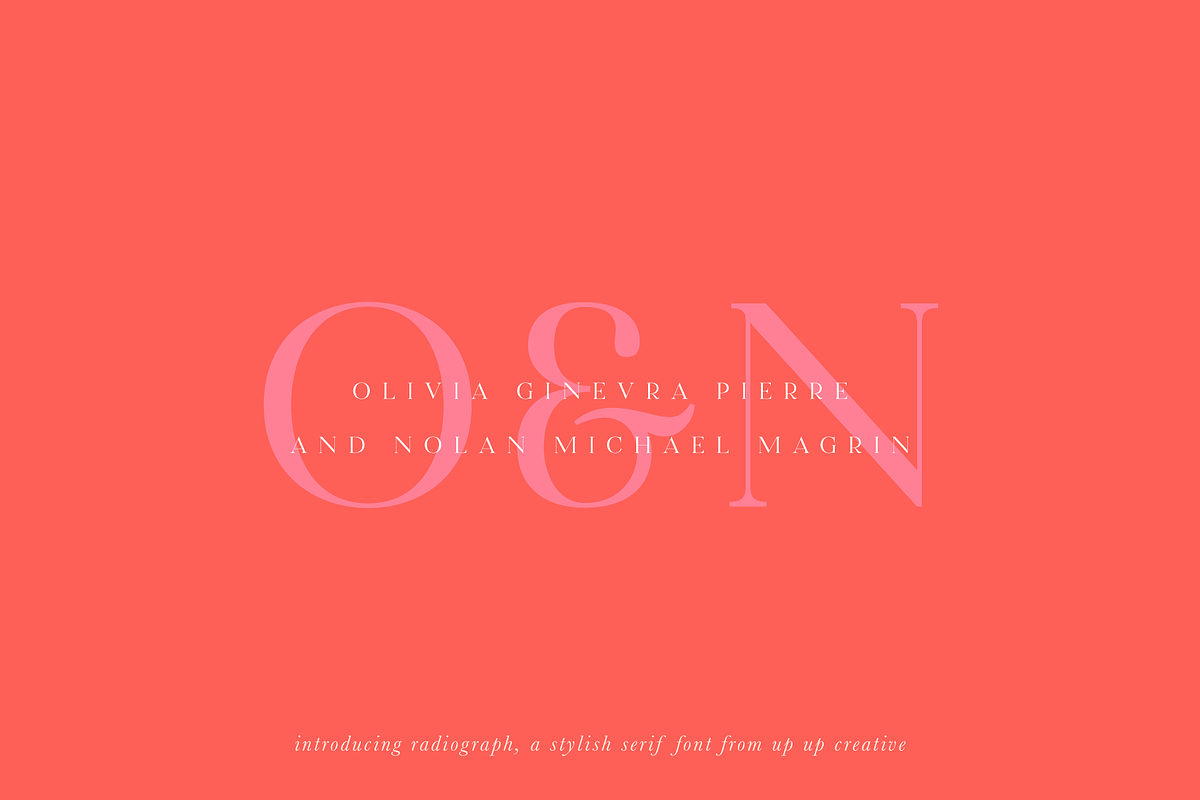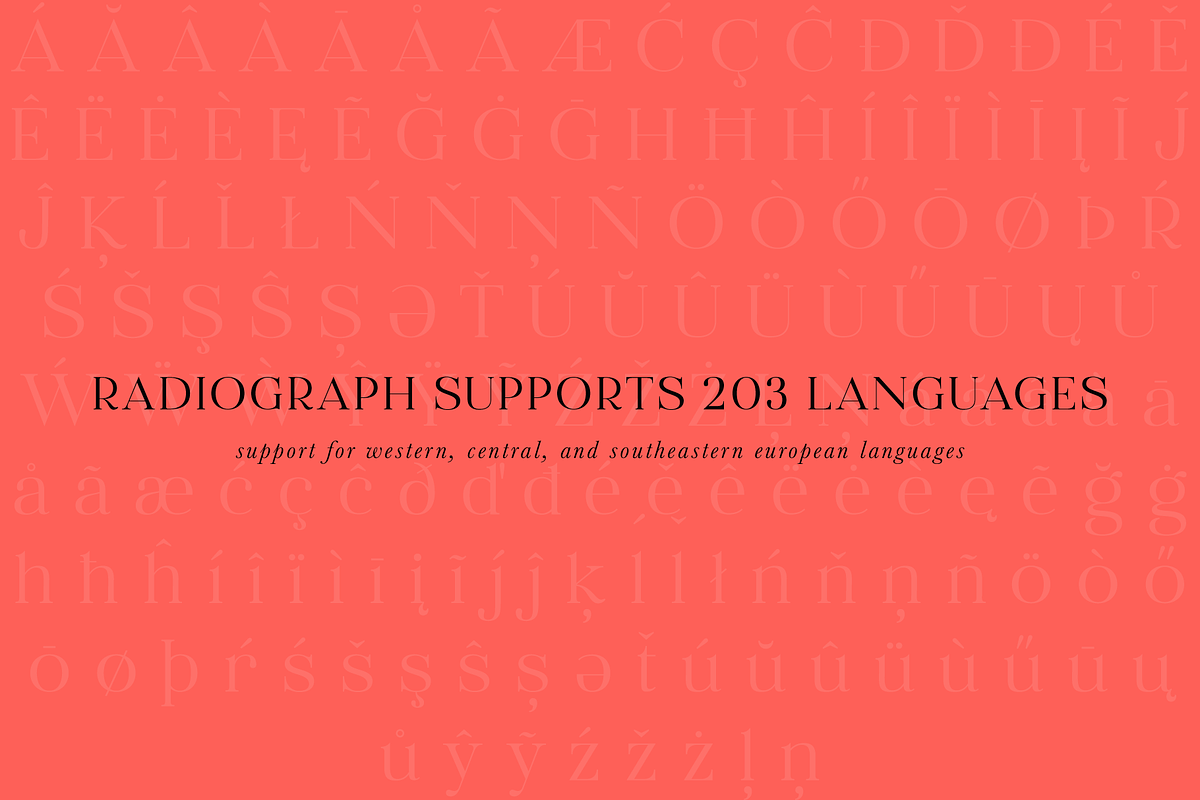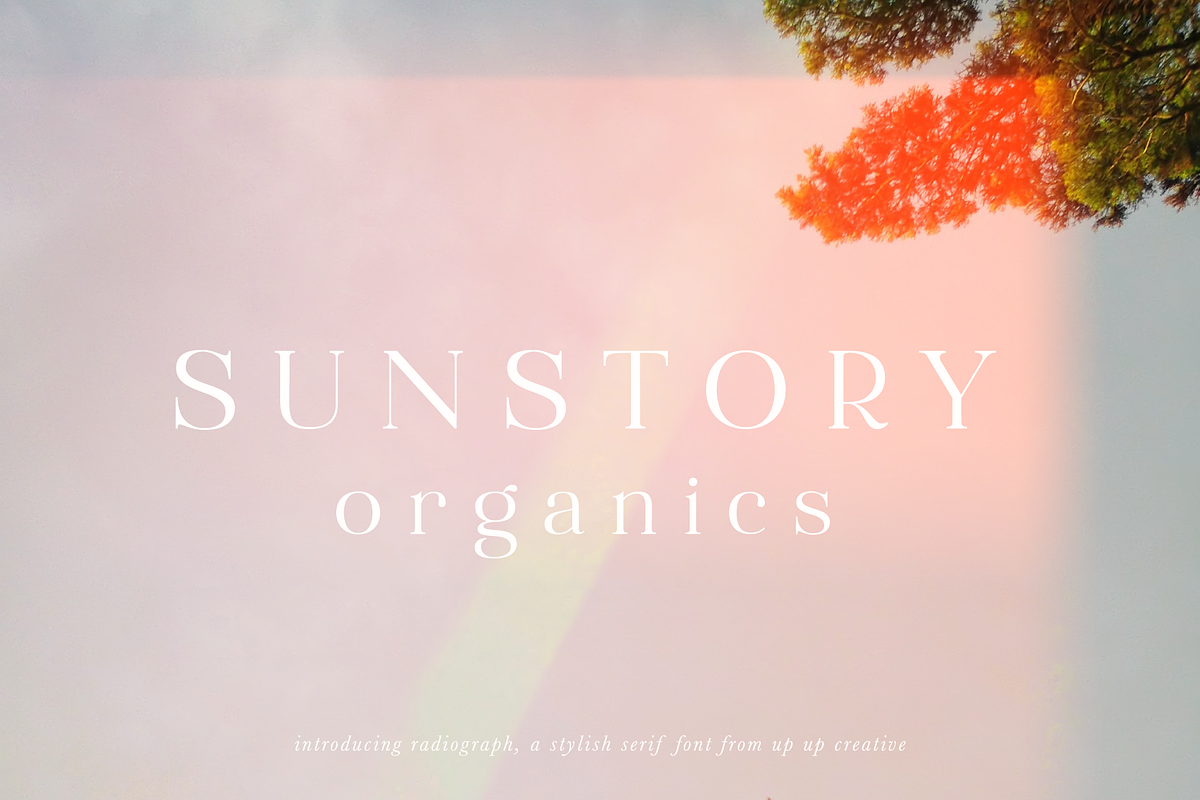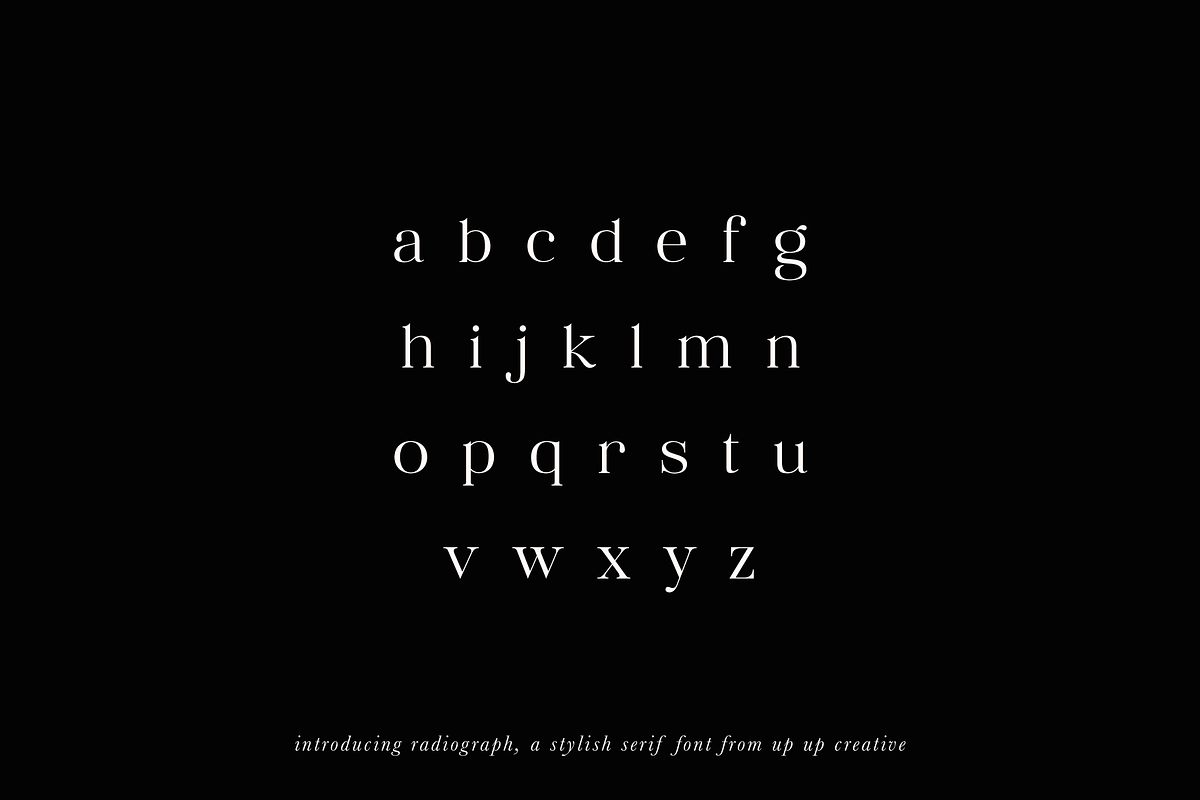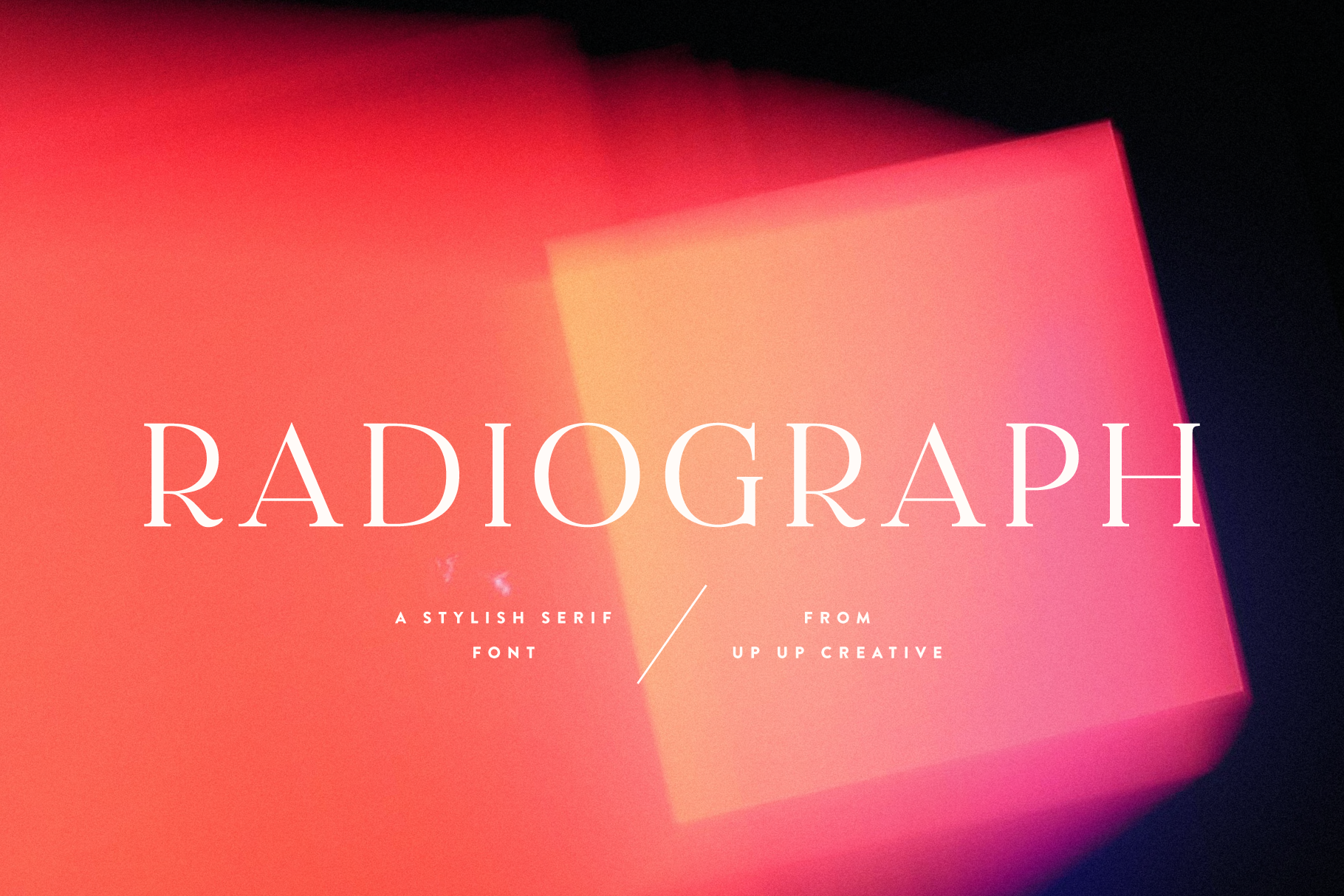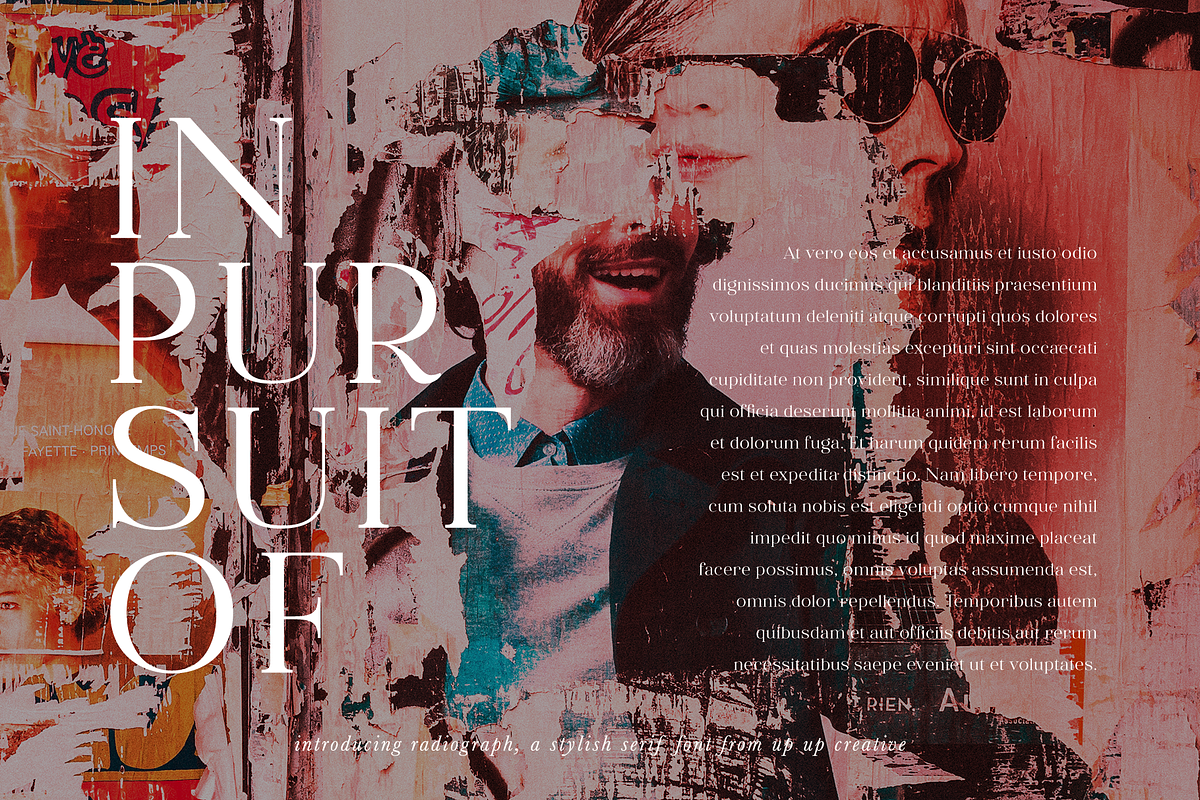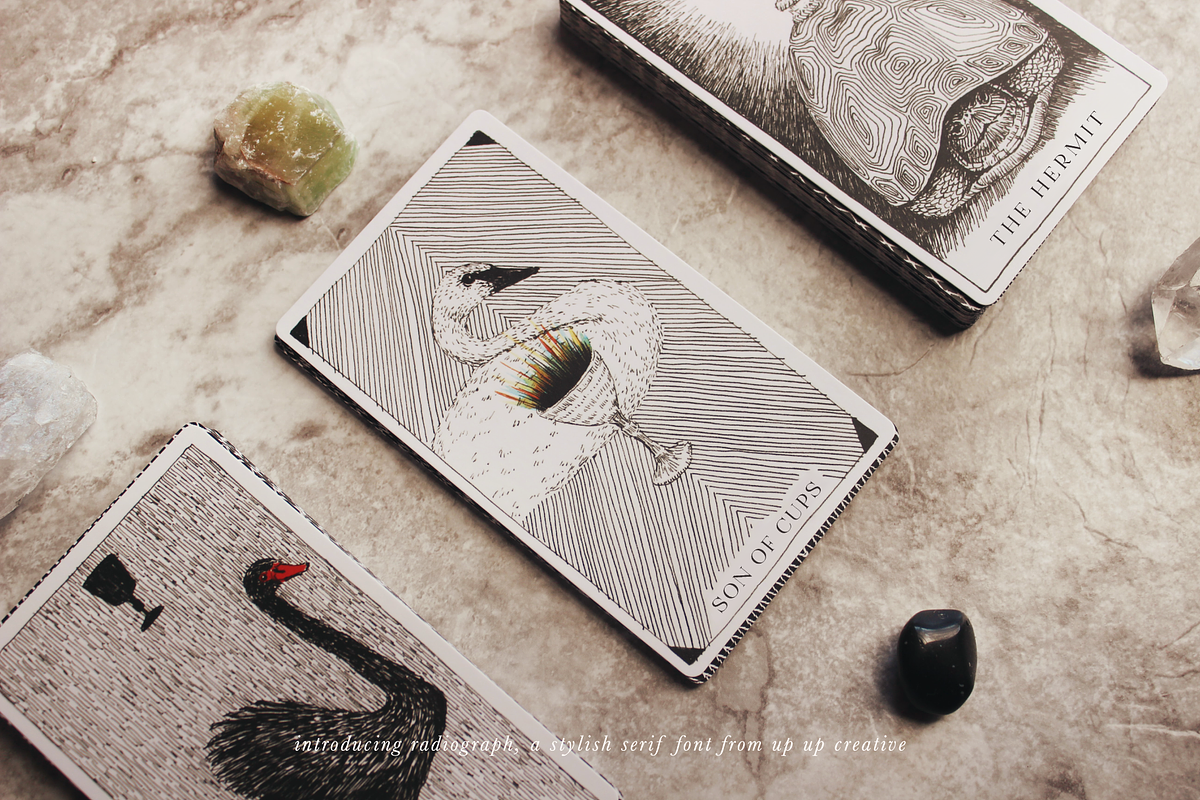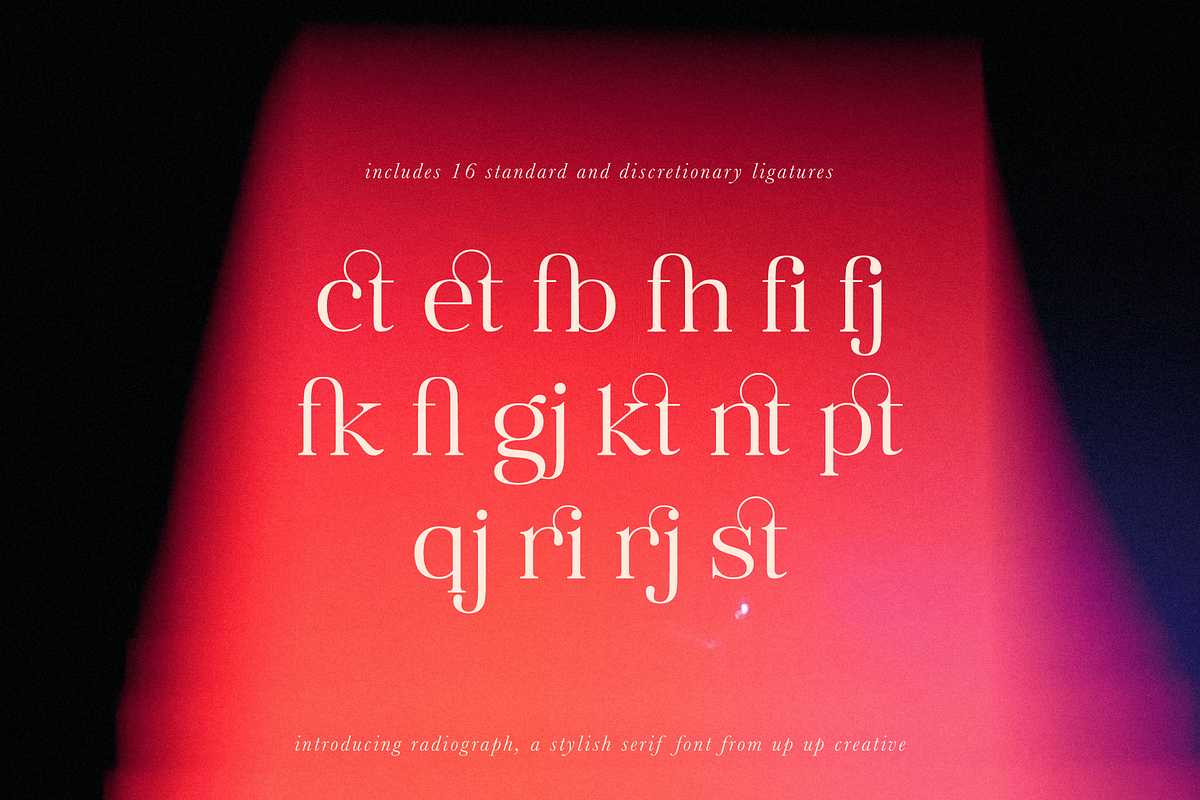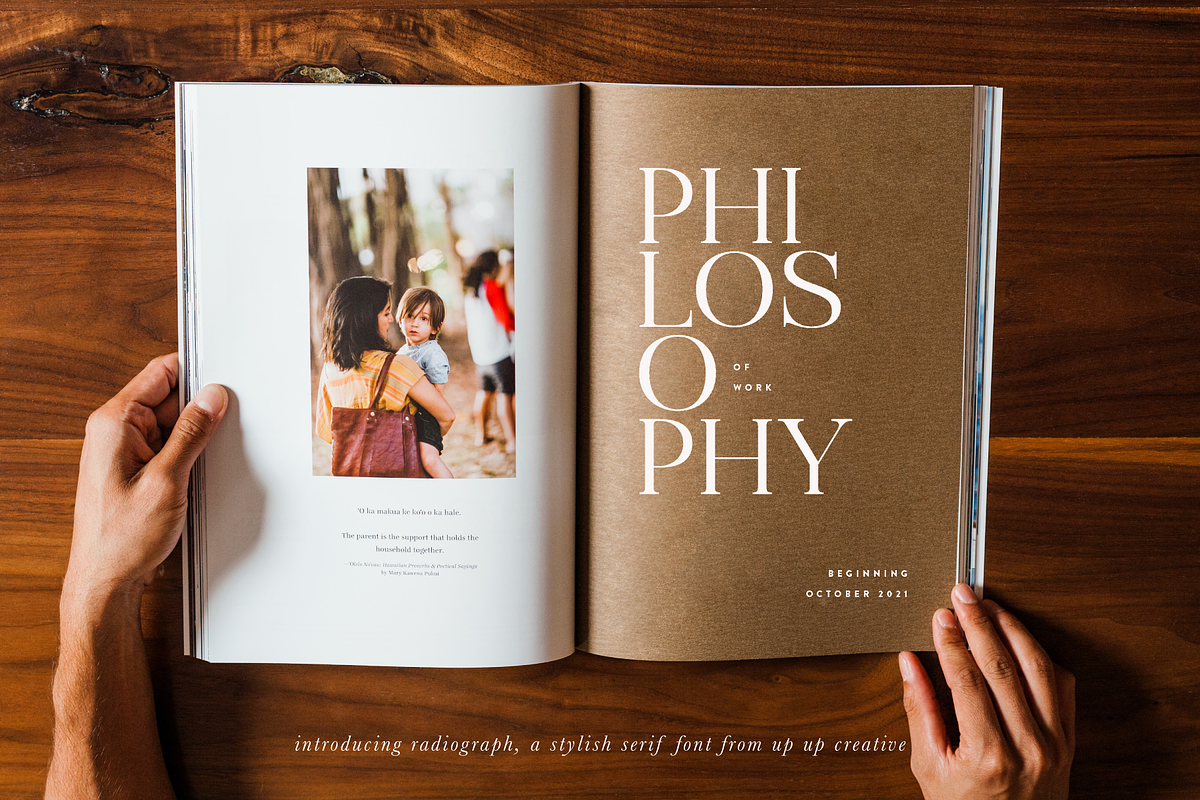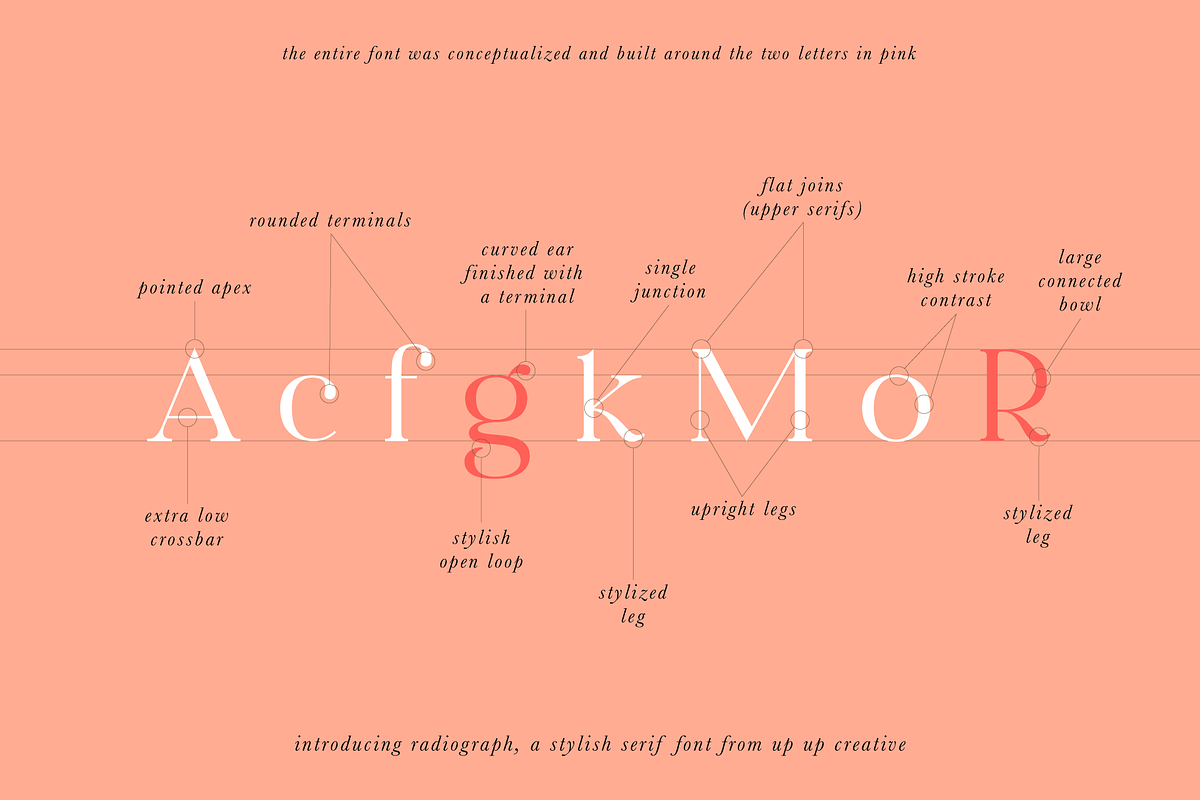
Radiograph, A Serif Font
Radiograph is a stylish serif font with subtle curves and playful proportions. It’s equally at home in all-caps headlines as it is in full paragraphs. Radiograph is perfect for headlines, editorial design, monograms, branding, logos, poster design, and more.
Radiograph includes approximately 480 glyphs and 16 standard and discretionary ligatures. OpenType features include a smattering of character variants, ligatures, and multilingual support (including multiple currency symbols).